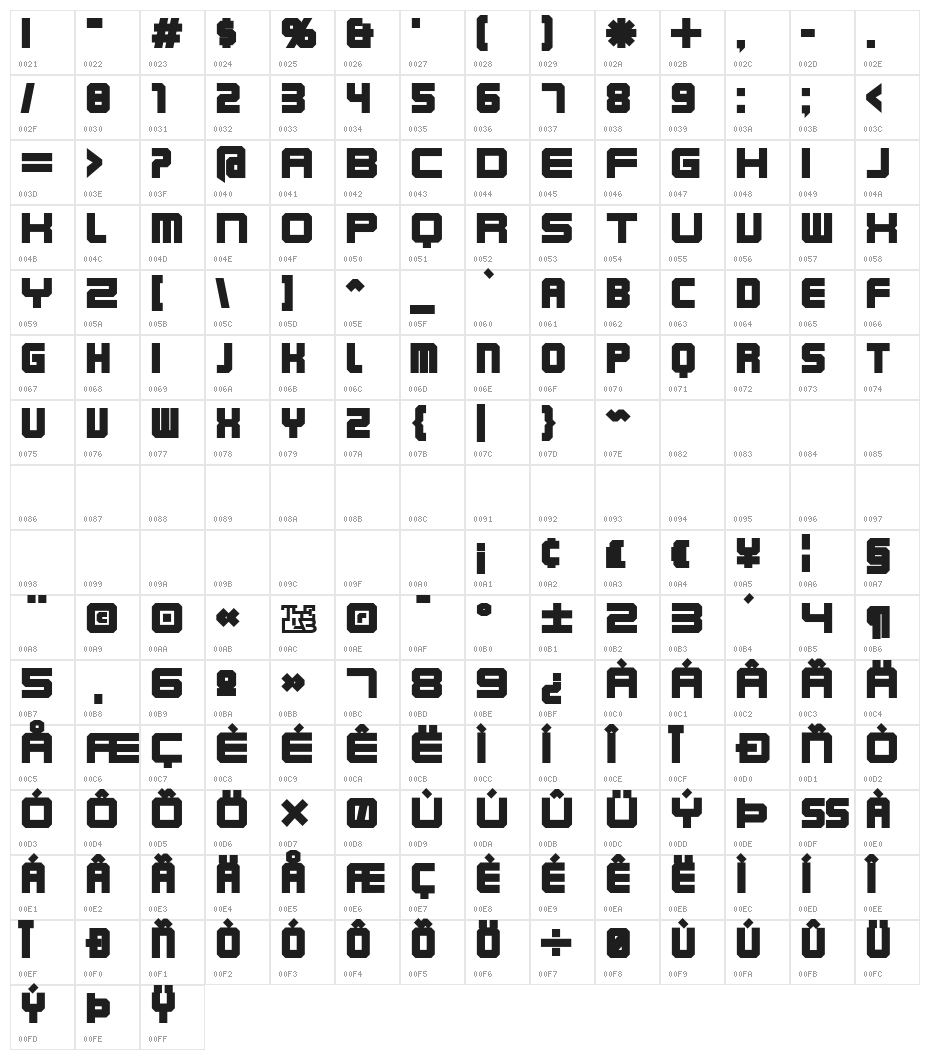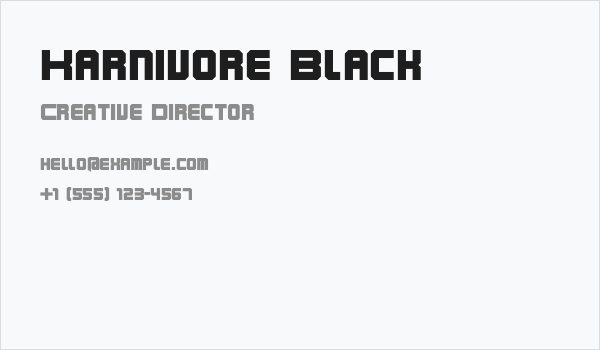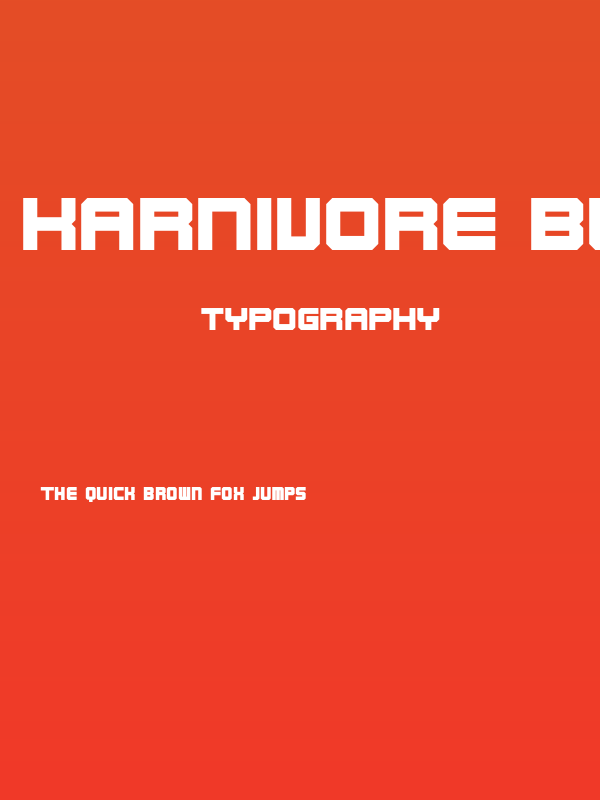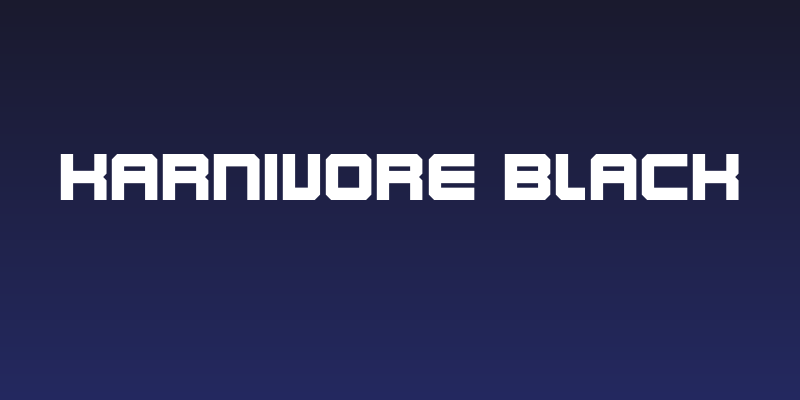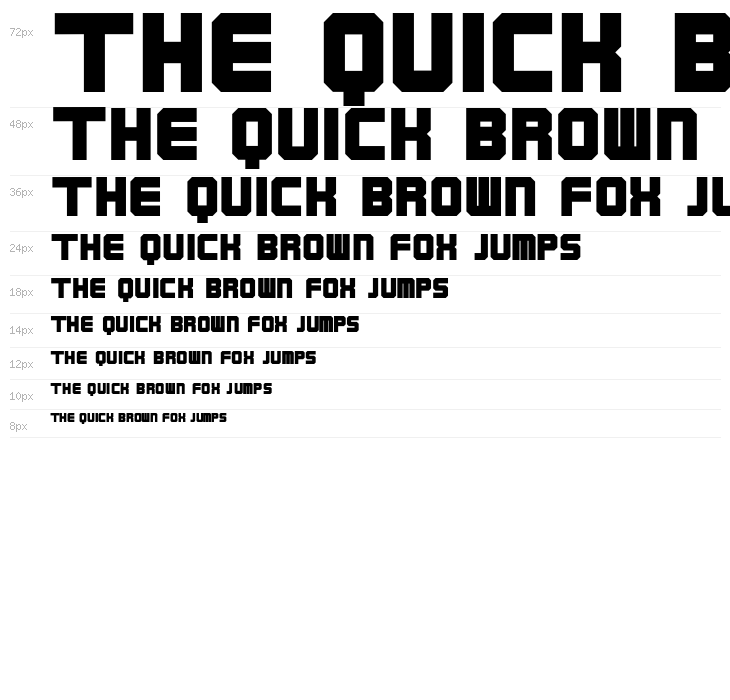
Karnivore Black Font
Karnivore Black Description
This font features a bold and aggressive design with thick, blocky characters that convey strength and impact. The angular edges and geometric shapes give it a modern and industrial feel, making it stand out in any design. The uppercase letters are uniform in height, while the numbers and special characters maintain the same boldness and style. This font is perfect for projects that require a strong visual presence and a touch of edginess.
| Proposed Projects | Ideal for posters, logos, video game graphics, and branding that requires a strong, impactful look. |